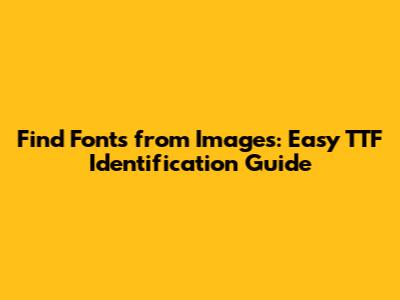
Ever found a gorgeous font in an image and thought, "Man, I gotta get my hands on that!"? You're not alone, guys! It happens to graphic designers, web developers, marketers, and even casual hobbyists all the time. Finding fonts from images can feel like detective work, but fear not! This ultimate guide is here to walk you through the process, helping you not only identify those elusive typefaces but also understand what makes a TrueType Font (TTF) so prevalent and how to properly find and use them. We're talking about transforming that 'ooh, pretty font!' moment into 'aha! I found it, and now it's mine!' in no time. So, buckle up, because we're about to dive deep into the exciting world of font identification!
Why Finding Fonts from Images Matters (and What TTF Means)
Alright, let's kick things off by understanding why finding fonts from images is such a big deal in the creative world. Imagine you're scrolling through Instagram, browsing a cool website, or flipping through a magazine, and BAM! A headline or a piece of text just grabs your attention. It's unique, it's stylish, and it's absolutely perfect for your next project, whether that's a new logo, a personal blog post, or a killer presentation. For designers, quickly identifying a font can save hours of searching or trying to replicate a style from scratch. For marketers, it means maintaining brand consistency or pinpointing successful typography trends. And for us everyday enthusiasts, it's just plain satisfying to replicate that cool look we saw. The ability to accurately identify fonts from images is a superpower in the digital age, allowing you to replicate beloved aesthetics and integrate them seamlessly into your own creations. It bridges the gap between inspiration and execution, ensuring your visual communication is always on point and professional.
Now, let's talk about TTF. You'll often hear us mention TrueType Font, or TTF, when we're talking about digital fonts. But what exactly is it? Well, TTF stands for TrueType Font, and it's a standard format for digital fonts, originally developed by Apple in the late 1980s as a competitor to Adobe's Type 1 fonts. It quickly became super popular because it offered high-quality typography on computer screens and printers, regardless of resolution. This means your text looks crisp and clear whether it's on your screen or printed on paper. Today, TTF files are everywhere and are one of the most common font formats you'll encounter and install on your computer, alongside OpenType Fonts (OTF). Their widespread compatibility across Windows, macOS, and Linux systems makes them a go-to choice for designers and everyday users alike. Understanding what a TTF is and its ubiquity is crucial because when you successfully find a font from an image, there's a very high chance you'll be looking to download and install its TTF (or OTF) version to use it in your own projects. Knowing this helps you narrow down your search and confidently select the correct file type for your needs, ensuring smooth integration into any design software you might be using. So, the next time you hear TTF, you'll know exactly what we're talking about: a reliable, high-quality font file ready for action!
The Best Tools and Methods to Identify Fonts from Images
Alright, let's get down to brass tacks: how do we actually identify fonts from images? Thankfully, you don't need a magnifying glass and a deerstalker hat (unless you want one, of course!). There are some fantastic tools and clever methods available that make finding fonts from images much, much easier. Whether you're a fan of instant gratification or prefer a more hands-on approach, we've got you covered. The key here is to leverage technology and a bit of typographic knowledge to pinpoint that perfect typeface. This section will explore both the popular online identifiers and some manual techniques that every font detective should have in their toolkit. Remember, the goal is not just to find a font, but to accurately identify the specific TTF file or its closest match so you can put it to use in your own creations. Let's dive into these awesome resources and strategies!
Online Font Identifier Tools
When it comes to speed and convenience for finding fonts from images, online tools are your absolute best friends. These web-based applications use sophisticated algorithms to analyze text within an image and suggest potential font matches from their vast databases. It's like magic, but with more pixels! Here are some of the heavy hitters you should definitely know about: First up, we have WhatTheFont by MyFonts. This is arguably the most famous and widely used tool for identifying fonts from images. You simply upload your image, crop the text you want to identify, and WhatTheFont does its thing, presenting you with a list of incredibly similar (or even exact) fonts, along with links to purchase or download them. It’s super user-friendly and often provides excellent results, making it a go-to for many designers trying to find fonts from images. Next, don't forget Font Squirrel Matcherator. Similar to WhatTheFont, Matcherator allows you to upload an image and will analyze the characters to suggest matching fonts. A great feature here is that Font Squirrel focuses on fonts that are free for commercial use, which is a huge bonus if you're on a budget or working on client projects without wanting to deal with licensing fees upfront. This is particularly useful when you're trying to identify a TTF file that you can immediately use without cost implications. Then there's Adobe Capture, a fantastic mobile app that extends this functionality to your phone. With Adobe Capture, you can snap a photo of text in the real world (or from your camera roll), and it will instantly identify the font and even suggest similar Adobe Fonts. This is amazing for on-the-go inspiration! Finally, many specific font foundries or marketplaces, like MyFonts (the parent of WhatTheFont) and Fonts.com, also offer their own identification services or robust search functions that become invaluable once you have a few clues from these initial identification tools. When using any of these tools to find fonts from images, remember a few pro tips for optimal results: always use a high-resolution image, ensure the text is as clear and horizontal as possible, and try to isolate individual words or characters if there are multiple fonts or complex layouts. These simple steps significantly improve the accuracy of the identification, helping you pinpoint that elusive TTF file much faster.
Manual Identification Techniques
While online tools are fantastic for quickly identifying fonts from images, sometimes they fall short, especially with low-resolution images, heavily stylized text, or very obscure fonts. This is where your inner font detective comes into play with manual identification techniques. Learning these methods not only helps you troubleshoot but also sharpens your eye for typography, making you better at finding fonts from images in general. The first step involves looking for unique characteristics within the letters. Guys, every font has its own quirks! Pay close attention to the serifs (those little feet at the end of strokes) or lack thereof (sans-serifs). Look at the unique shapes of letters like 'g' (single-story vs. double-story), 'a' (open vs. closed), and 'Q' (tail variations). Examine the ascenders (parts of letters that go above the x-height, like 'h' or 'l') and descenders (parts that go below the baseline, like 'p' or 'g'). Kerning (the spacing between individual letters) and ligatures (connected characters like 'fi' or 'fl') can also be huge clues. Even the weight (light, regular, bold), the slope (italic vs. oblique), and the overall width of the characters can tell you a lot about the font's family. Once you have a few characteristic clues, you can then use online font libraries and marketplaces to browse and compare. Websites like Google Fonts, DaFont, and FontSpace offer extensive collections, often categorised by style (serif, sans-serif, script, display, monospaced), which allows you to filter your search. You can type in custom text to see how a potential match looks with your specific words, making it easier to confirm if you've found the correct TTF file. Developing a 'typographer's eye' takes practice, but it's incredibly rewarding. The more you consciously observe fonts, the better you'll become at discerning subtle differences and quickly narrowing down possibilities when you're trying to find fonts from images. Don't be afraid to keep a personal log or Pinterest board of interesting fonts you encounter, noting their key features; this builds your own visual library and speeds up future identifications. Sometimes, a font might be a custom design or hand-lettered, meaning there's no existing TTF file to find. In such cases, your goal shifts from identification to finding a similar-looking font that captures the same essence. This manual approach not only helps you in a pinch but also deepens your appreciation for the art of typography.
Diving Deeper: Understanding Font Anatomy and Terminology
To truly master the art of finding fonts from images, it's incredibly helpful to speak the language of typography. Understanding font anatomy and terminology isn't just for fancy designers; it's a practical skill that gives you a massive advantage when using identification tools or attempting manual searches. When you can describe what you're seeing in an image using proper font terms, you'll be much more effective at searching databases or even explaining what you're looking for to another designer. This knowledge directly impacts your ability to identify specific TTF files or find incredibly similar styles. So, let's break down some key concepts, guys!
First off, let's differentiate the main font classifications. You've got your Serif fonts, which are characterized by those little decorative strokes or 'feet' at the ends of the main strokes of letters (think Times New Roman or Georgia). These often convey a traditional, authoritative, or classic feel. Then there are Sans-serif fonts, which, as the name suggests (sans means 'without' in French), lack these serifs (think Arial, Helvetica, or Open Sans). Sans-serifs tend to appear modern, clean, and minimalist, making them popular for screens and contemporary designs. Script fonts mimic handwriting, ranging from elegant calligraphy to casual cursive (like Pacifico or Great Vibes). These are great for adding a personal or artistic touch. Display fonts are designed for large sizes, like headlines or logos, and often have unique, decorative, or highly stylized characteristics (think impactful poster fonts). Lastly, Monospaced fonts allocate the same amount of horizontal space for each character, similar to a typewriter (like Courier New or Source Code Pro), which is great for coding or tabular data. Knowing these broad categories helps you narrow down your search immediately when you're trying to find fonts from images.
Beyond these classifications, let's zoom into the individual parts of a letter. The x-height is the height of the lowercase 'x' in a given font, which generally determines the height of all lowercase letters without ascenders or descenders. A larger x-height can make a font feel more legible, especially at smaller sizes. The baseline is the imaginary line on which most letters sit. Cap height is the height of capital letters from the baseline. Ascenders are the parts of lowercase letters (like 'b', 'd', 'h', 'l', 't') that extend above the x-height, while descenders are the parts that extend below the baseline (like 'g', 'j', 'p', 'q', 'y'). The length and style of these ascenders and descenders can be critical clues when you're trying to identify fonts from images. For instance, a font with very short ascenders and descenders will have a much 'tighter' feel compared to one with long, elegant ones. Weight refers to the thickness of a font's strokes (e.g., thin, light, regular, medium, bold, black). Italic styles are typically designed to complement the regular upright style, often with different character shapes, whereas oblique styles are simply slanted versions of the regular upright font. Even the aperture (the opening in letters like 'c', 's', 'a', 'e') or the bowl (the enclosed curved part of letters like 'd', 'b', 'o') can have distinctive shapes. By consciously observing these specific elements, you'll develop a much sharper eye. When an online tool gives you a few close matches for a font you're trying to find from an image, you can then apply this anatomical knowledge to compare the fine details and pick the exact TTF file you're after. This deeper understanding truly elevates your font identification skills beyond just guessing or hoping for the best; it empowers you to make informed decisions and accurately pinpoint the fonts you need.
Best Practices for Locating and Using TTF Files
Okay, so you've done the detective work, you've used your amazing identification skills, and you've successfully identified that stunning font from an image. High five! Now what? The next crucial step, guys, is to know where to find the actual TTF file and how to use it responsibly. This isn't just about downloading the first thing you see; it's about making sure you're getting a quality file, respecting licensing, and properly installing it. Let's talk about the best practices for locating and using TTF files once you've made your match.